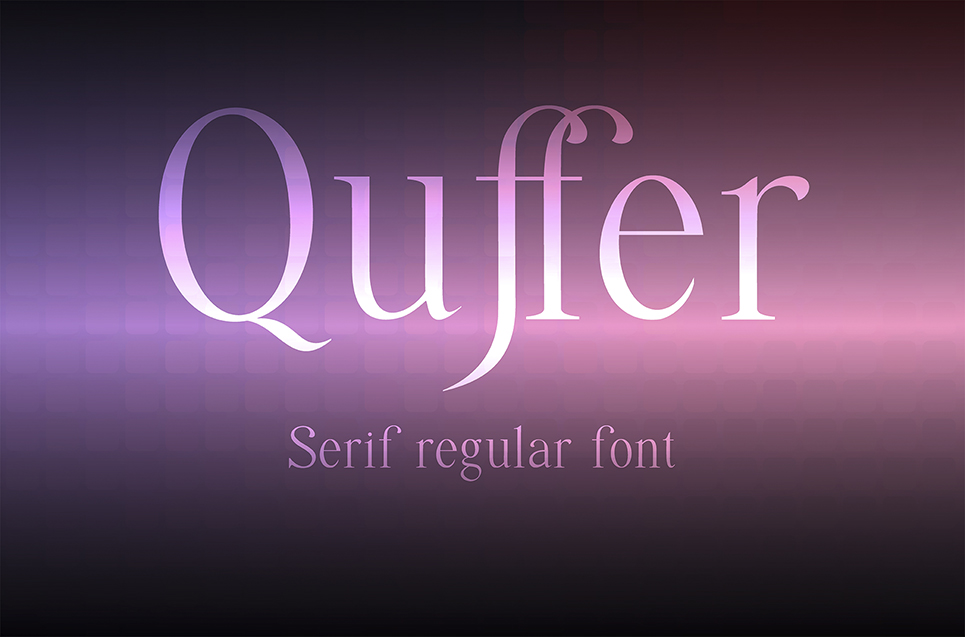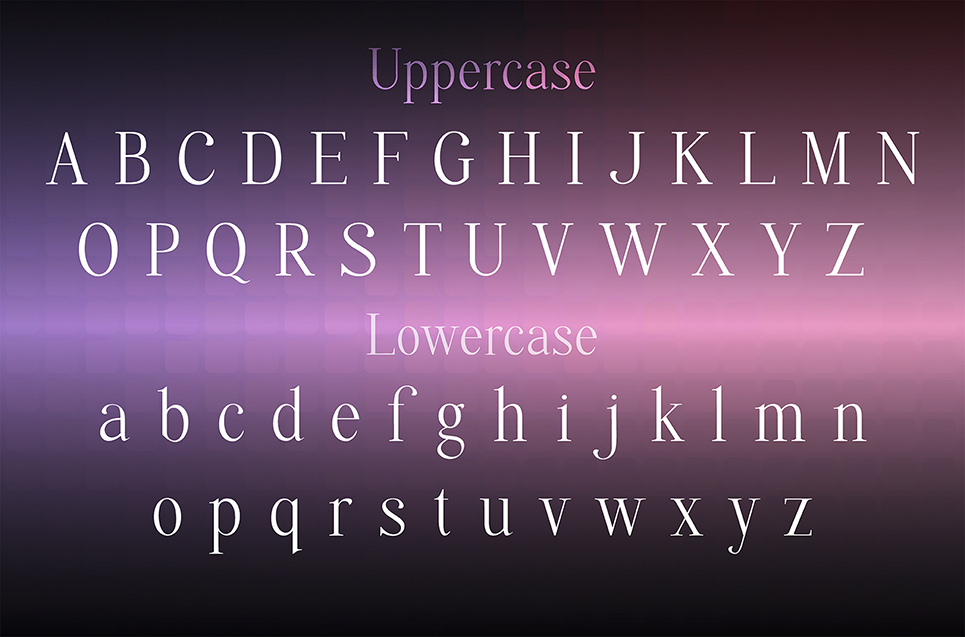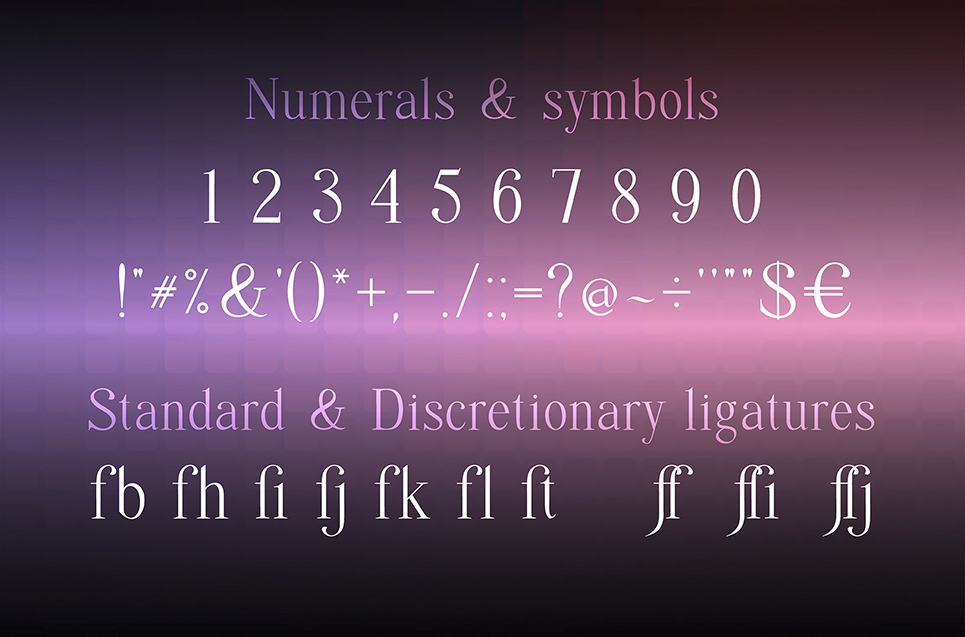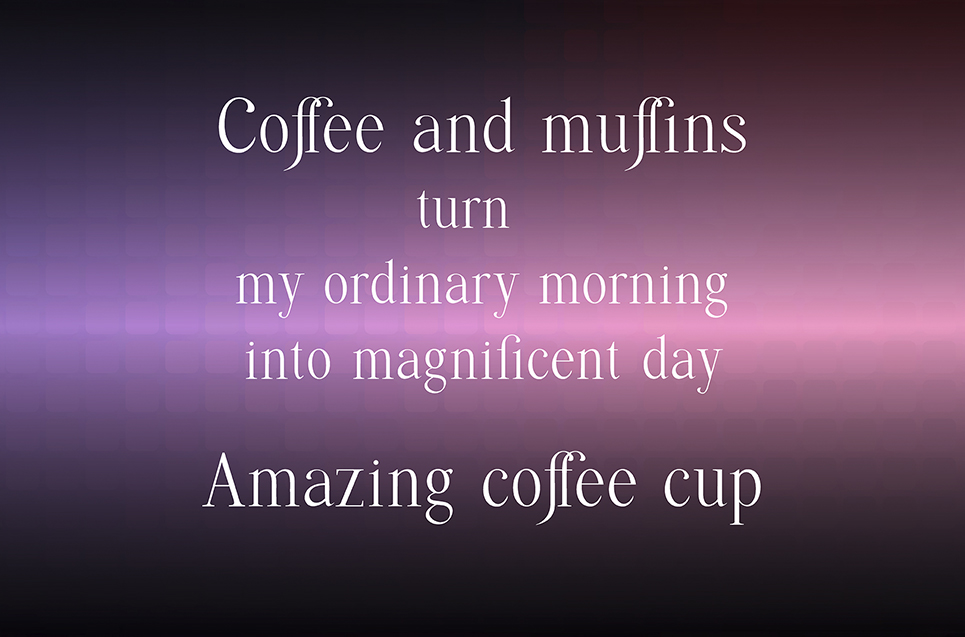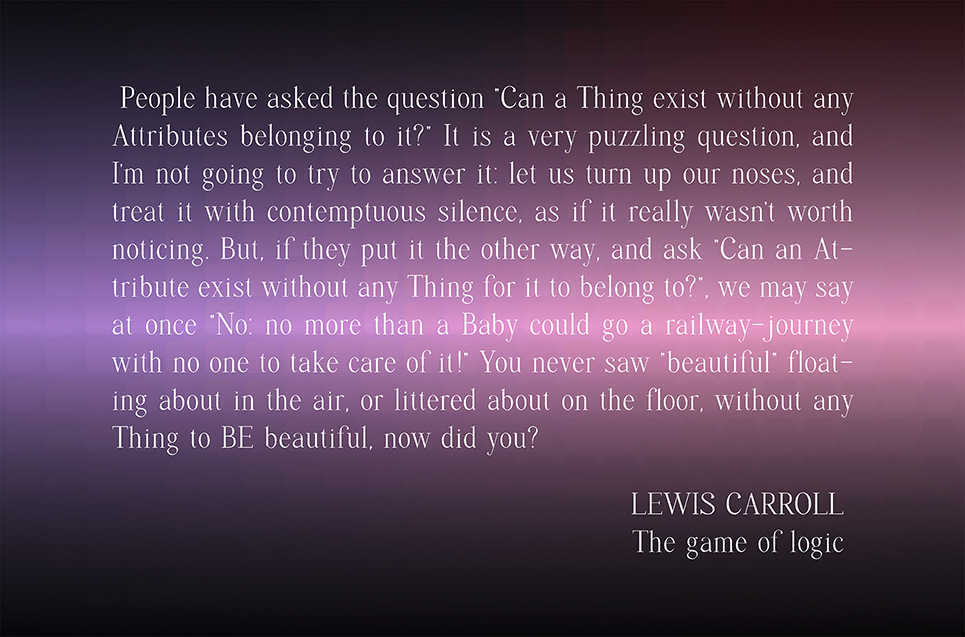
Quffer, Serif Regular Font
Quffer, serif regular font
Quffer is a serif regular font for branding, invitation, labels and any over design projects. This font was created with the Illustrator add-on Fontself Maker.
Contains standard characters, uppercase, lowercase, numbers, punctuation, symbols and ligatures.